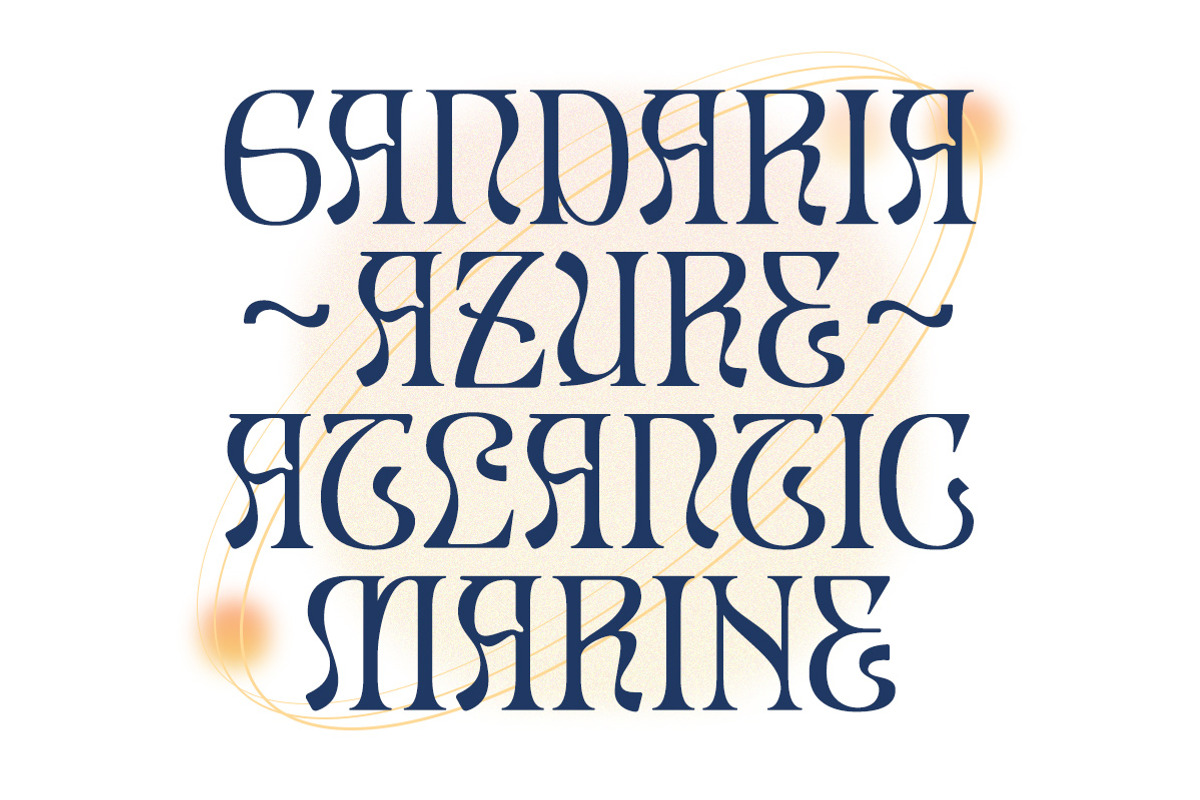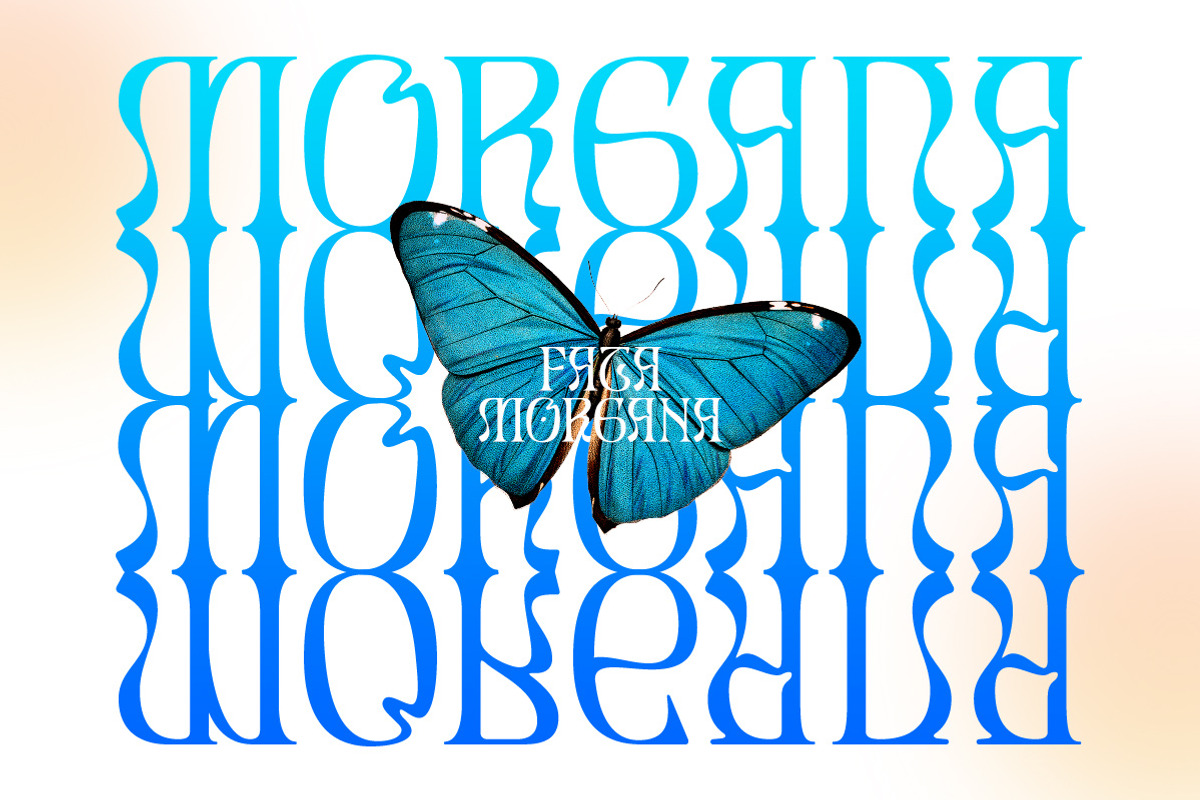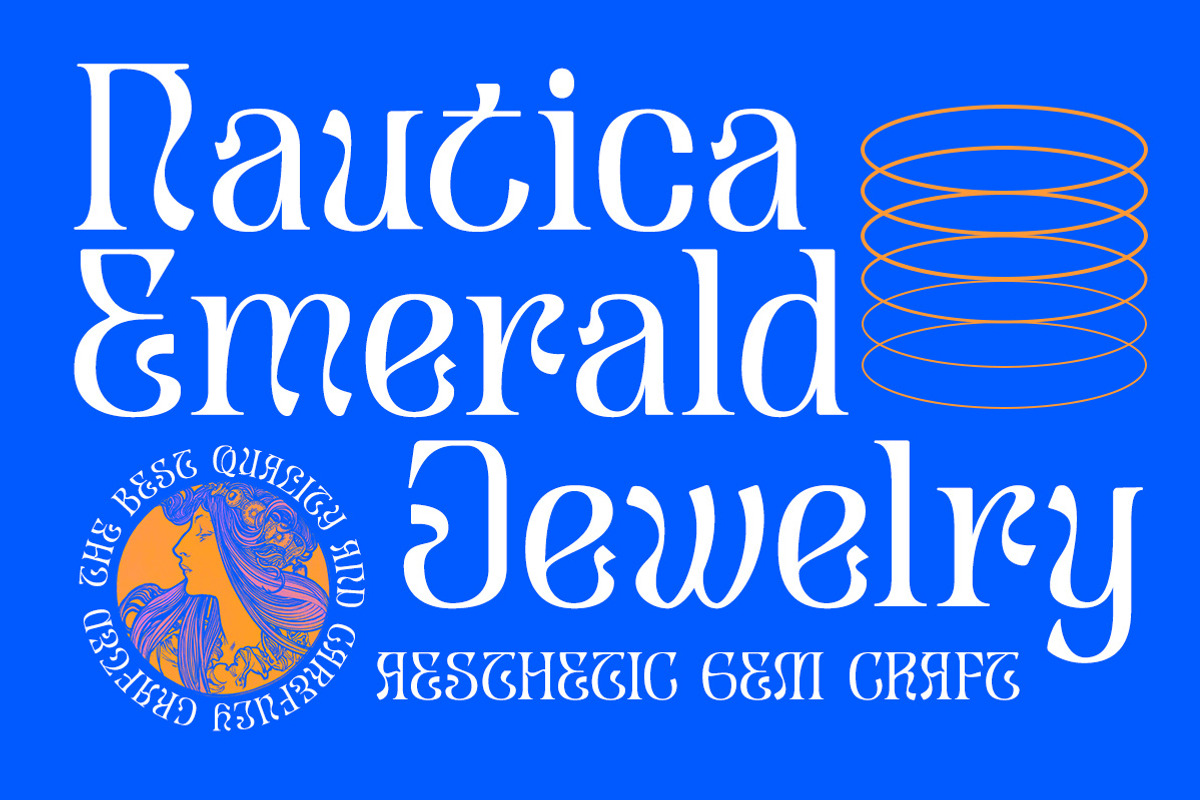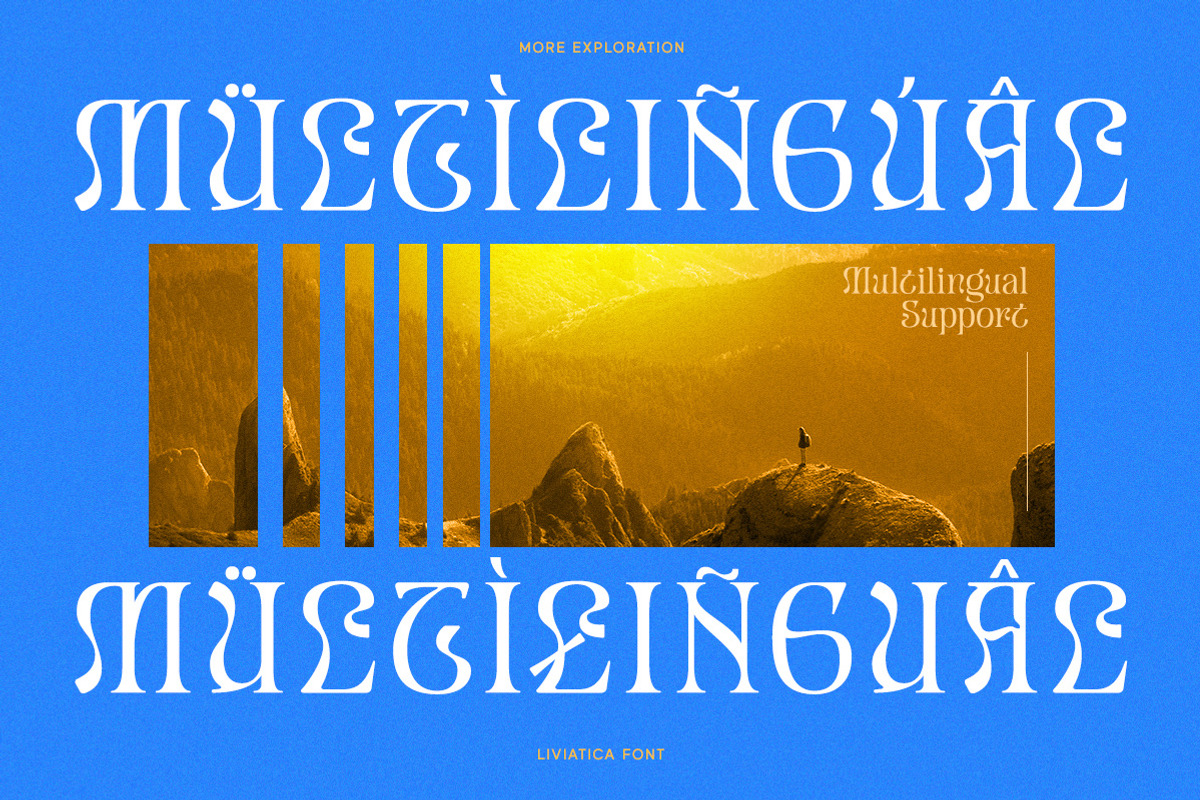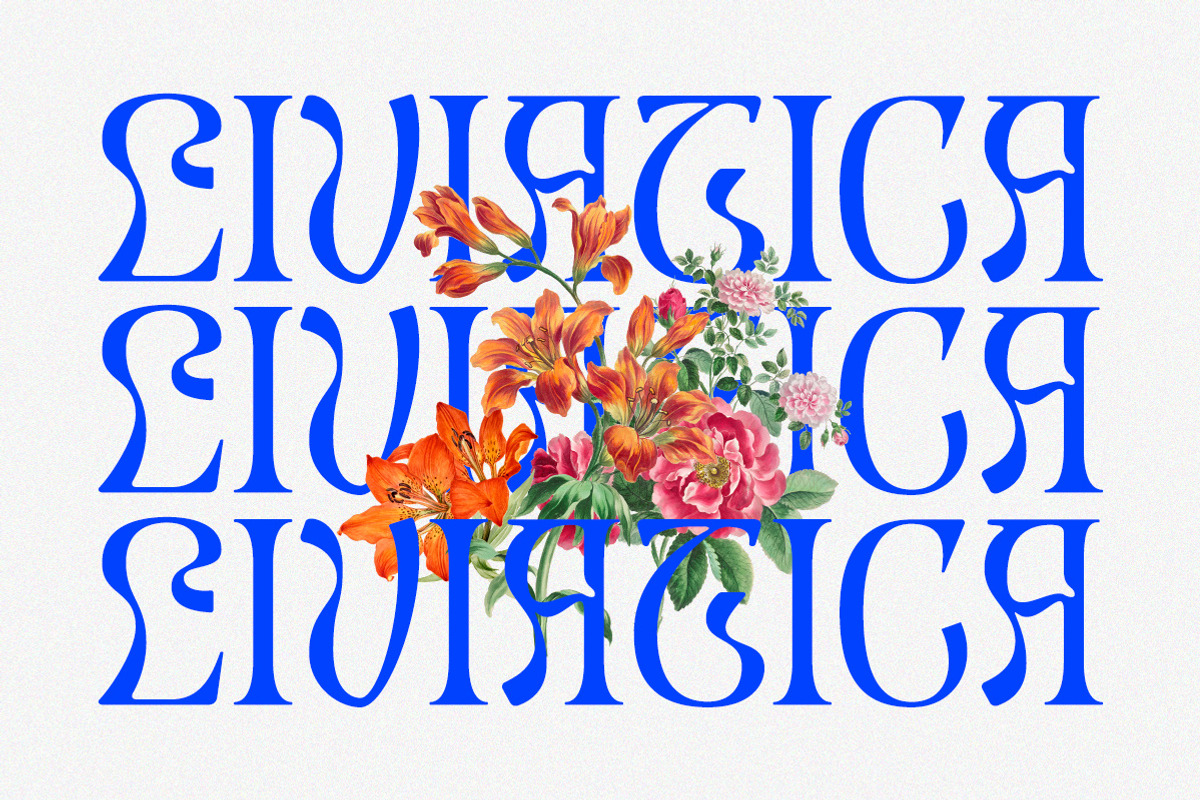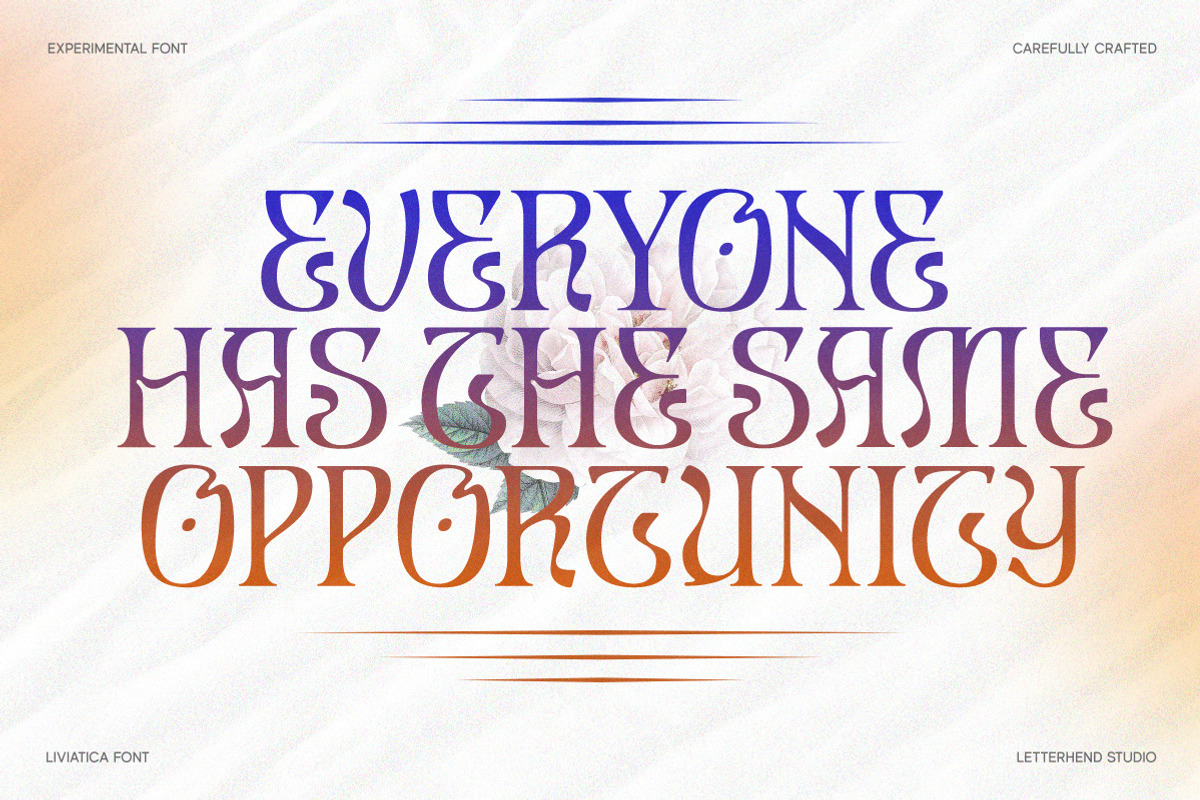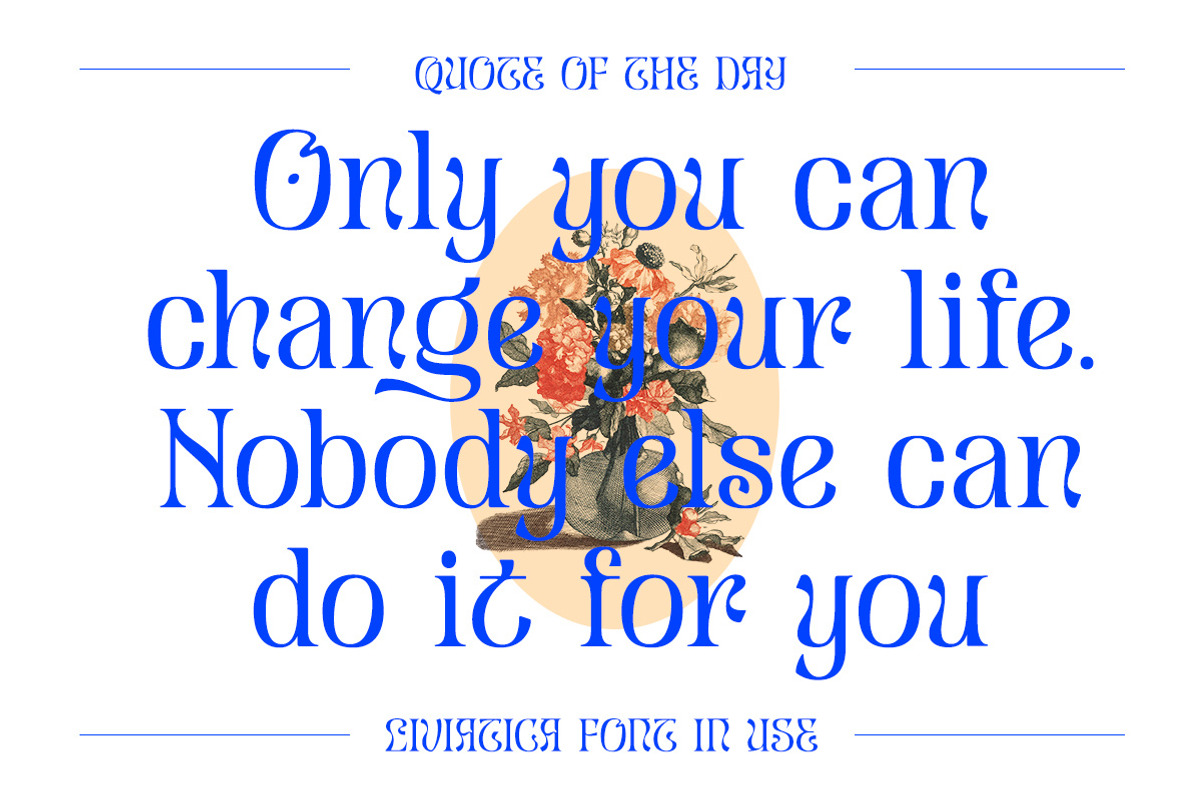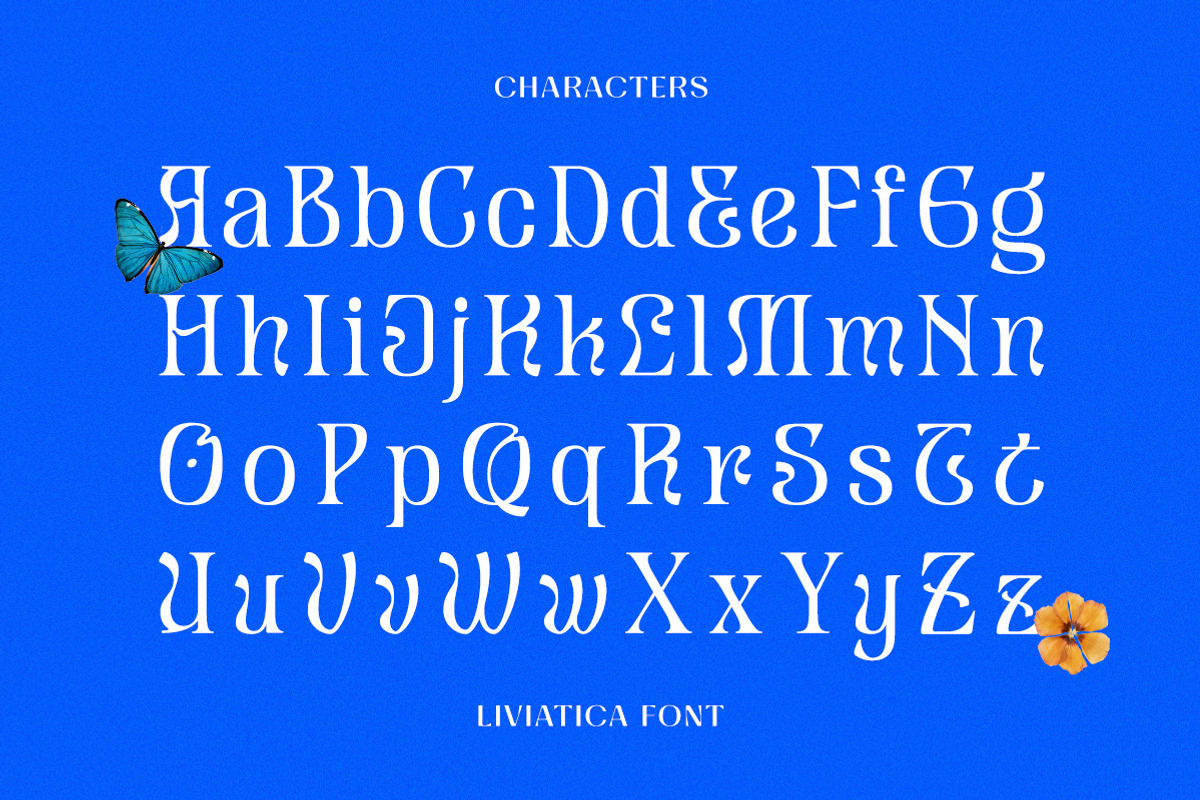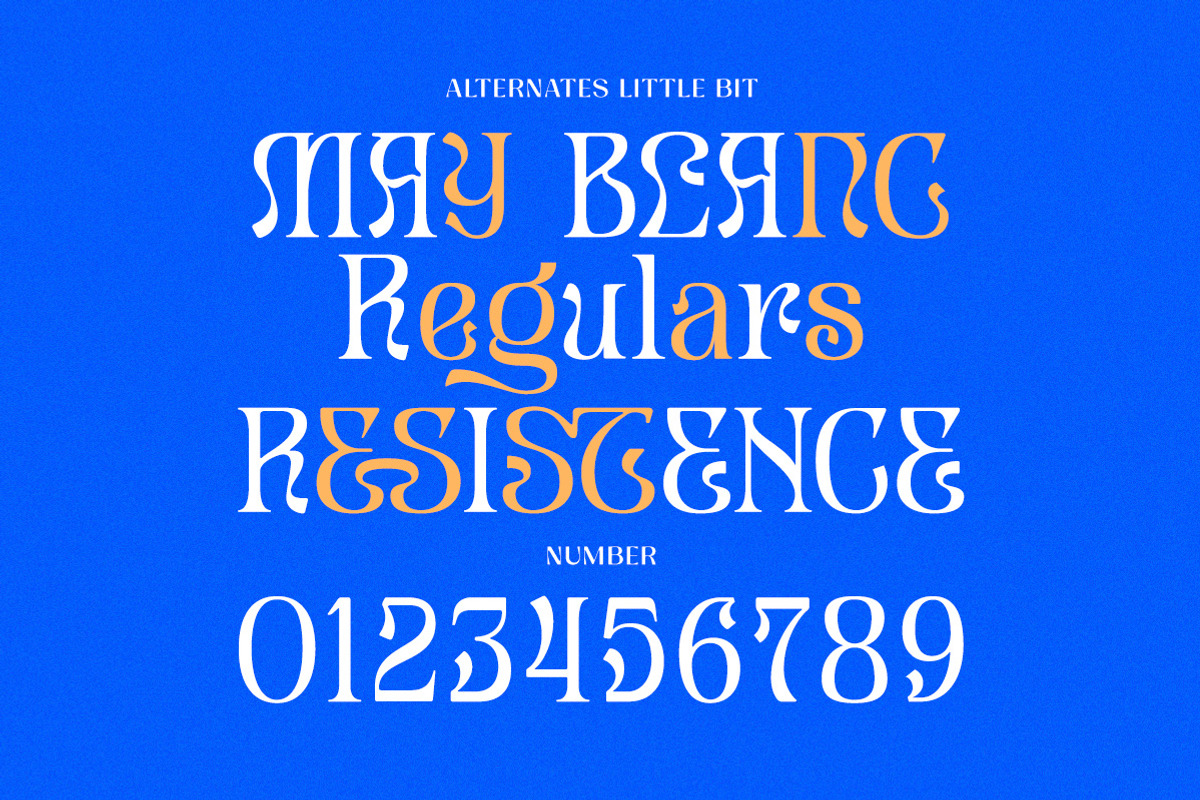
LIVIATICA - Display Font
Liviatica is a sophisticated serif with unique letterform. This typeface has been made carefully to make sure its premium quality and luxury feel. The letterform makes this typeface unique and stands out rather than the regular serif font. Very suitable for logo, headline, tittle, and the other various formal forms such as invitations, labels, logos, magazines, books, greeting / wedding cards, packaging, fashion, make up, stationery, novels, labels or any type of advertising purpose.
- alternates